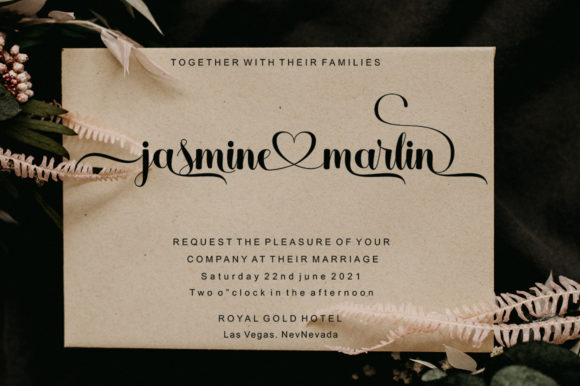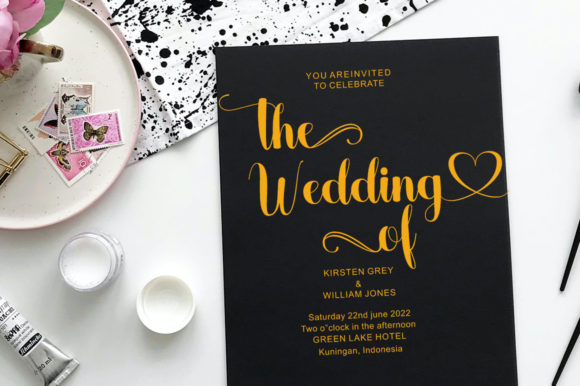
Kalagot Font
db-ku.com - Script & Handwritten -- Kalagot is perfect for today’s emerging market design. This script font has a stylish, trendy, natural and soft vibe. Kalagot is PUA encoded which means you can access all of the glyphs and swashes with ease!